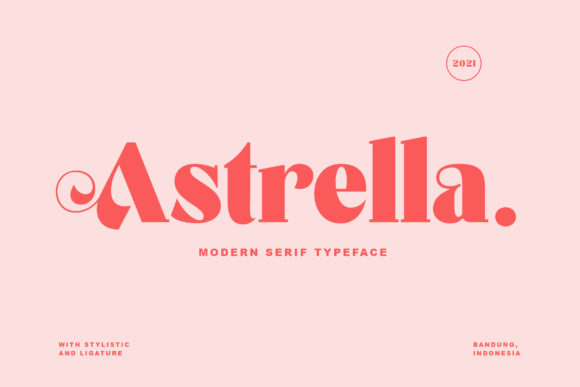
Meet Astrella, the captivating serif font that's sure to leave an enchanting touch on all your creative endeavors. Handcrafted with love by handpik, Astrella's classic, feminine, and elegant personality make it the perfect choice for a myriad of projects, from logos and branding to wedding invitations and social media posts.
Picture this: a logo that exudes timeless sophistication, an invitation that radiates romance and elegance, or a social media post that shimmers with captivating charm. Astrella's graceful curves and delicate details will transform your designs into captivating works of art.
But Astrella isn't just visually stunning; it's also incredibly versatile. Its ability to adapt seamlessly to various contexts makes it a font that you'll reach for time and time again. Whether you're creating a wedding invitation that evokes a sense of timeless romance or a product packaging that exudes luxury and sophistication, Astrella will elevate your designs with effortless grace.
Don't settle for ordinary fonts that blend into the background. Choose Astrella, the font that will make your designs shine brighter than the stars. Its PUA encoding makes accessing all the glyphs and swashes a breeze, ensuring that your creative expression knows no bounds.